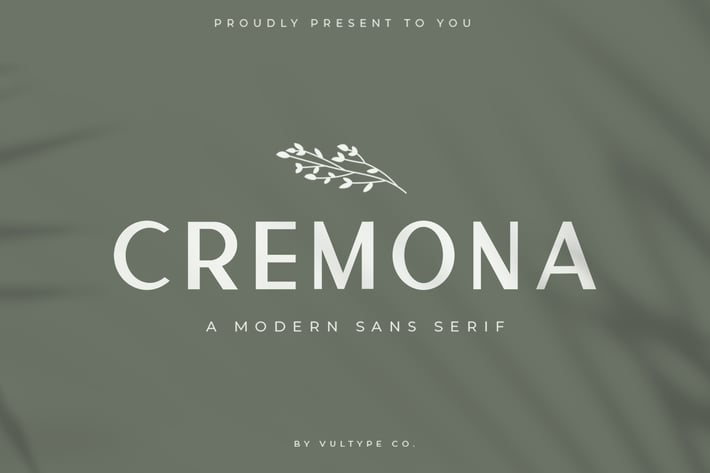
Cremona Bold - Minimal Font
Cremona Bold Minimal Sans serif is a clean and minimal sans serif font coming in 2 weights (Regular & Bold). Itβs the ideal font for adding romance & charm to your next design projects!